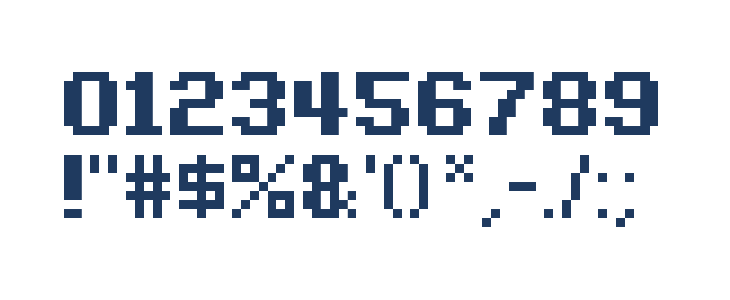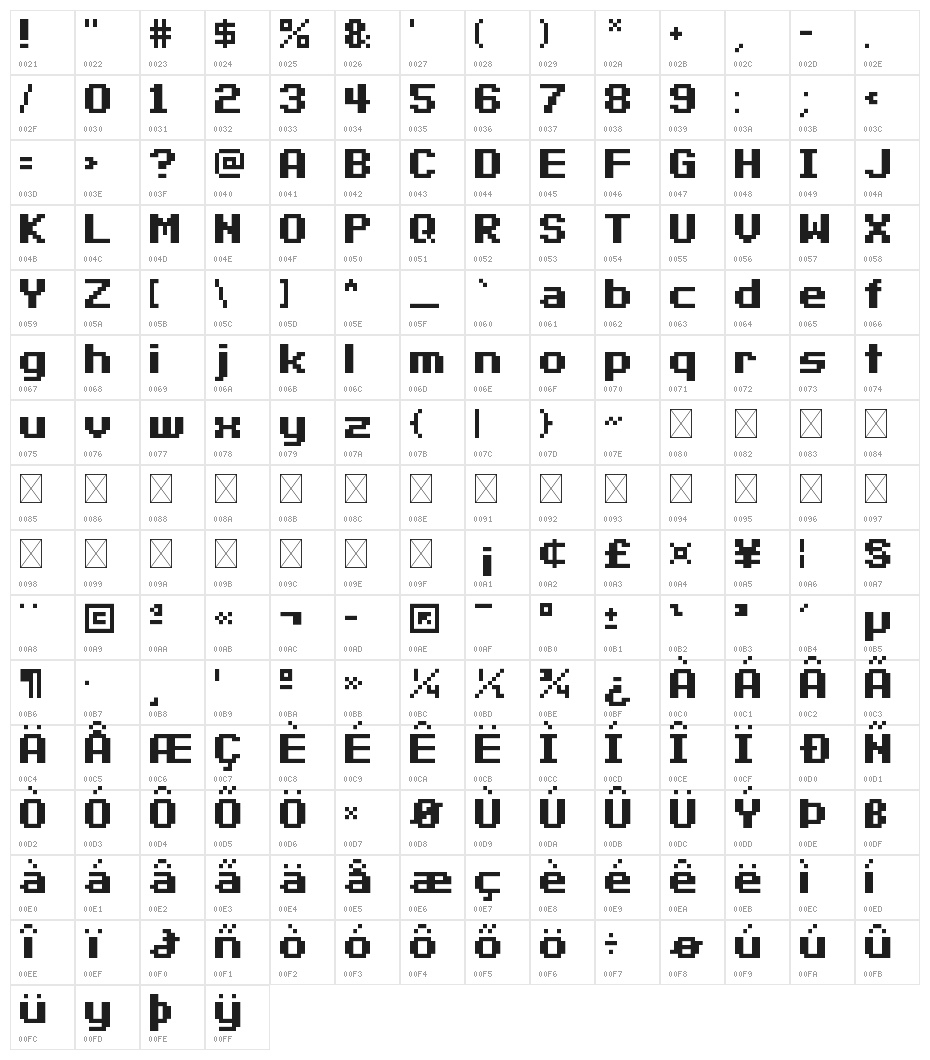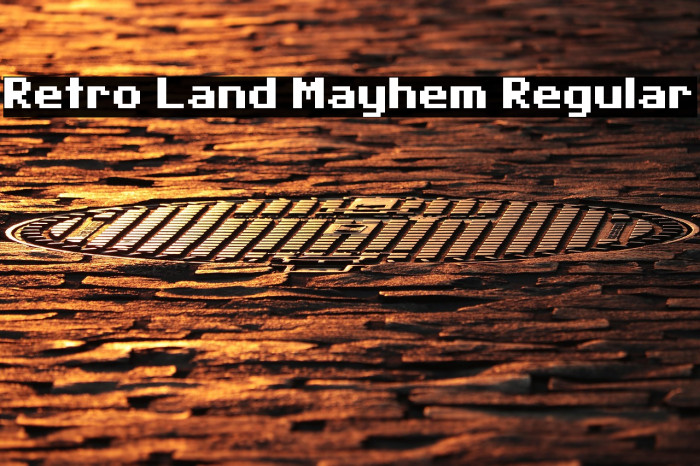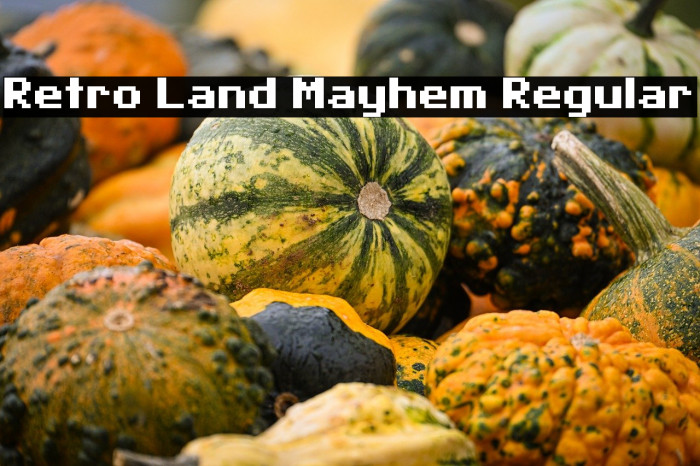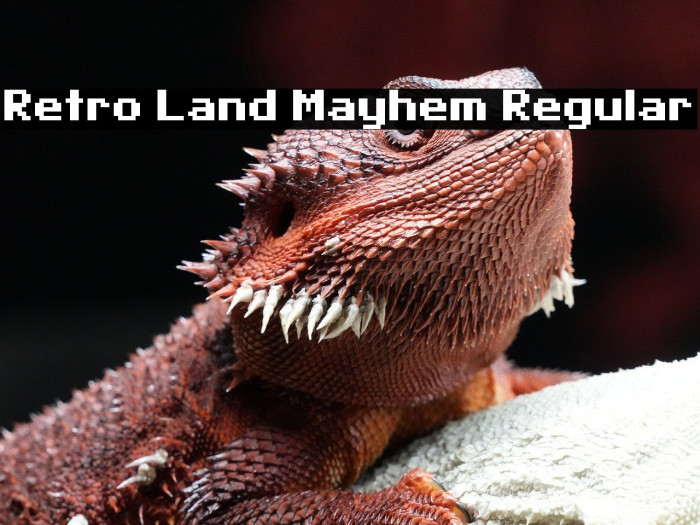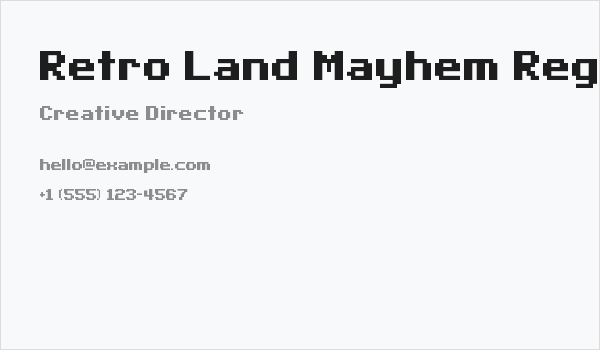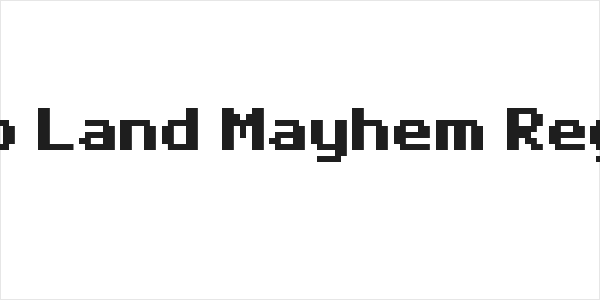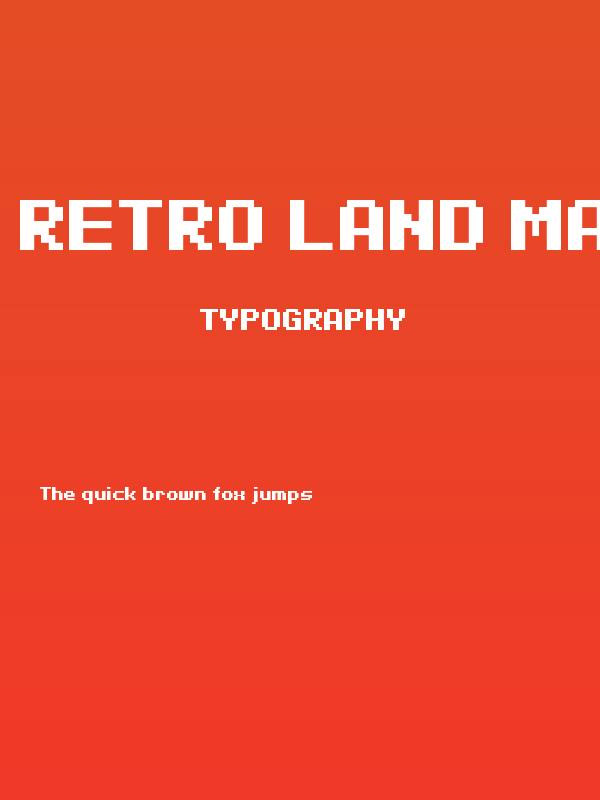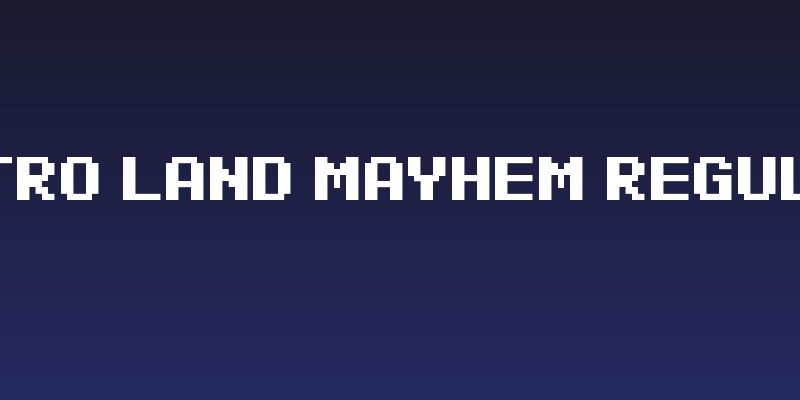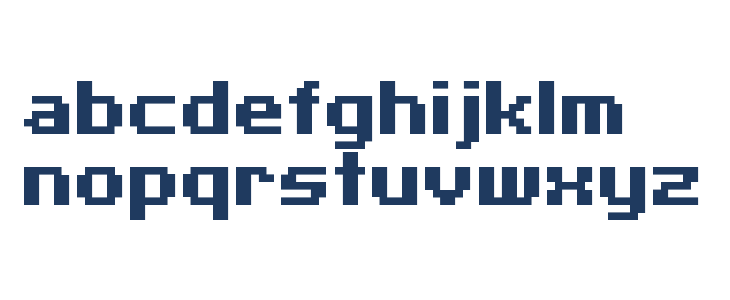
Retro Land Mayhem Regular Font
Retro Land Mayhem Regular Description
This font features a bold, pixelated design reminiscent of classic video game graphics from the 8-bit era. The characters are constructed with a blocky, grid-like structure, giving it a distinctly retro and digital feel. Each letter and number is uniformly spaced, contributing to its monospaced appearance. The uppercase and lowercase letters maintain a consistent height, enhancing its geometric style. The font includes a full set of numerals and a variety of special characters, all adhering to the same pixelated aesthetic. Its simplicity and nostalgia make it ideal for projects that aim to evoke a sense of vintage digital technology.
| Use Case | Logos, Headlines, Digital Art |
| Proposed Projects | Ideal for retro-themed video games, digital art projects, and nostalgic branding. |